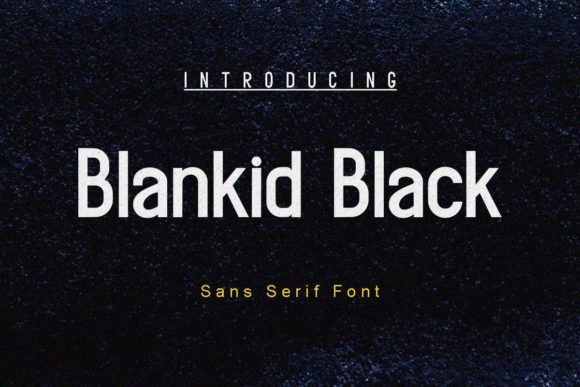
The Perfect Typographic Companion: Unlocking the Power of Blankid Black Font
Have you ever stared at a blank canvas, waiting for inspiration to strike? The blank page can be intimidating, but it’s also a liberating space where creativity knows no bounds. For designers, the right font can be the spark that sets the imagination ablaze. Enter the Blankid Black Font, a sleek and modern sans serif typeface designed to elevate your visual storytelling.
This beautiful and professional font is more than just a pretty face – it’s a versatile tool that can be used for a wide range of applications, from posters and headlines to logo designs and branding. Whether you’re a seasoned pro or just starting out, the Blankid Black Font is an invaluable asset in your design toolkit.
Key Features of Blankid Black Font
- Font Family: Blankid Black, a unique sans-serif font designed for modern and minimalist designs.
- Font Size: Blankid Black is available in multiple sizes, including 100, 200, 300, 400, 500, 600, 700, 800, 900, with each size offering a unique feel and readability.
- Unique Characteristics: Blankid Black features a clean, geometric design with a focus on legibility and simplicity, making it an ideal choice for titles, headings, and body text in modern designs.
Blankid Black Font Review
Overall, I’m quite impressed with the Blankid Black Font. The clean lines, modern aesthetic, and sleek feel make it a great addition to any design project.
Here are a few things that I think work well:
- ✨ The font’s legibility is excellent, even at smaller font sizes. This makes it perfect for body text or titles where readability is crucial.
- ✨ The font’s versatility is also impressive. It works well in both digital and print applications, and can be easily paired with other fonts to create a unique look.
- ✨ The font’s bold weight is particularly striking, and can add a lot of impact to headings or titles.
That being said, there are a few limitations to consider:
- ⚠️ The font may not be suitable for projects where a more ornate or decorative font is required. The Blankid Black Font is a modern, minimalist design, and may not be the best fit for more traditional or formal projects.
- ⚠️ The font’s italic style is not as polished as the regular and bold styles. This may not be a major issue for most projects, but could be a consideration for more formal or high-end applications.
Overall, I think the Blankid Black Font is a solid choice for any design project that requires a modern, sleek aesthetic. With its excellent legibility and versatility, it’s a great addition to any font collection.
Getting the Most Out of Blankid Black Font
Here are some tips for getting the most out of Blankid Black Font:
- Use it for titles and headings to add a touch of elegance.
- Combine it with other fonts to create a unique and interesting typography.
- Experiment with different font sizes and styles to achieve the desired effect.
Blankid Black Font is perfect for:
- Designing luxury branding and marketing materials.
- Creating sophisticated and modern typography.
- Adding a touch of elegance to digital and print materials.
Alternatives to Blankid Black Font for Designers
1. Arial Black
Arial Black is a sans-serif font that is commonly used for headings and titles. It is a good alternative to Blankid Black Font when you need a clean and modern look. However, Arial Black lacks the unique character of Blankid Black Font and may appear less sophisticated in certain contexts. Use Arial Black when you want a straightforward, easy-to-read font for headings and titles.
2. Impact
Impact is a sans-serif font known for its bold and dramatic appearance. It is a good choice when you want to make a statement with your headings and titles. Impact is more dramatic than Blankid Black Font, but it may be less readable at smaller font sizes. Use Impact when you want to add emphasis and drama to your headings and titles.